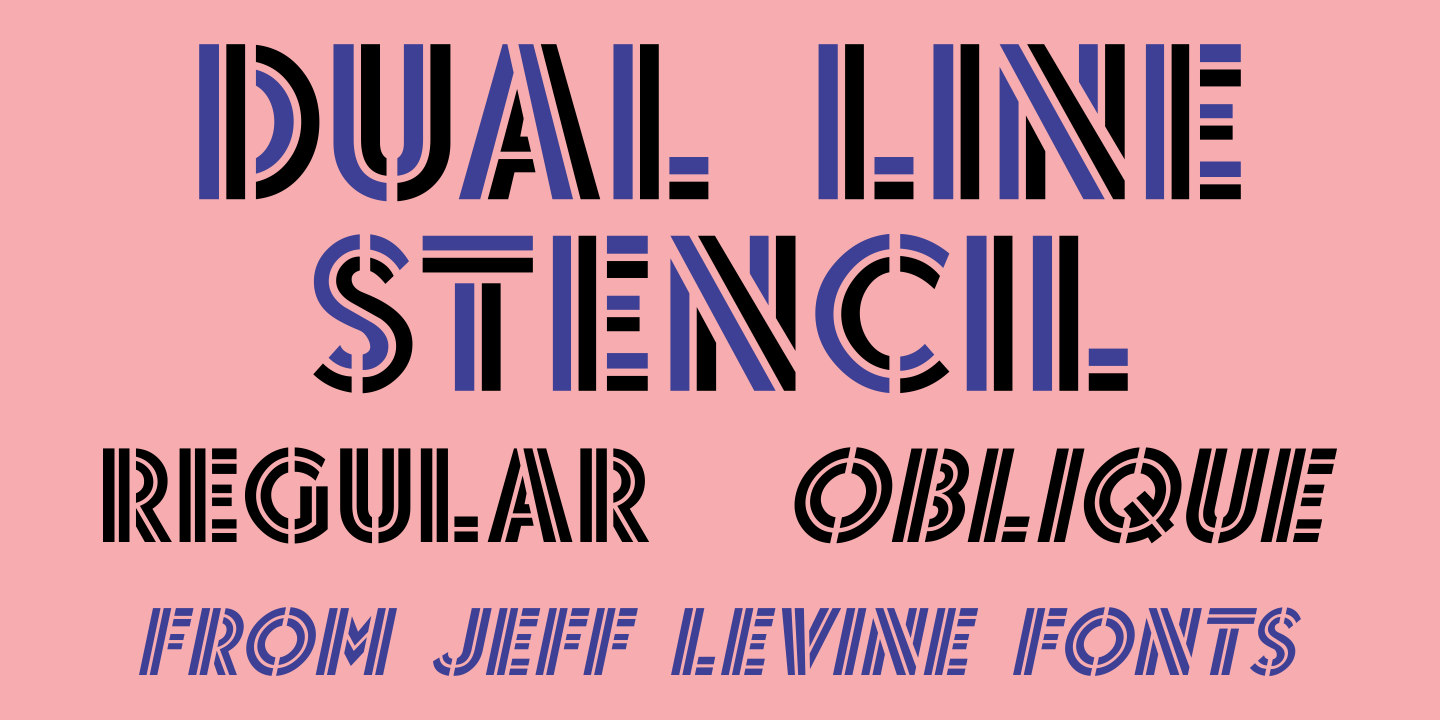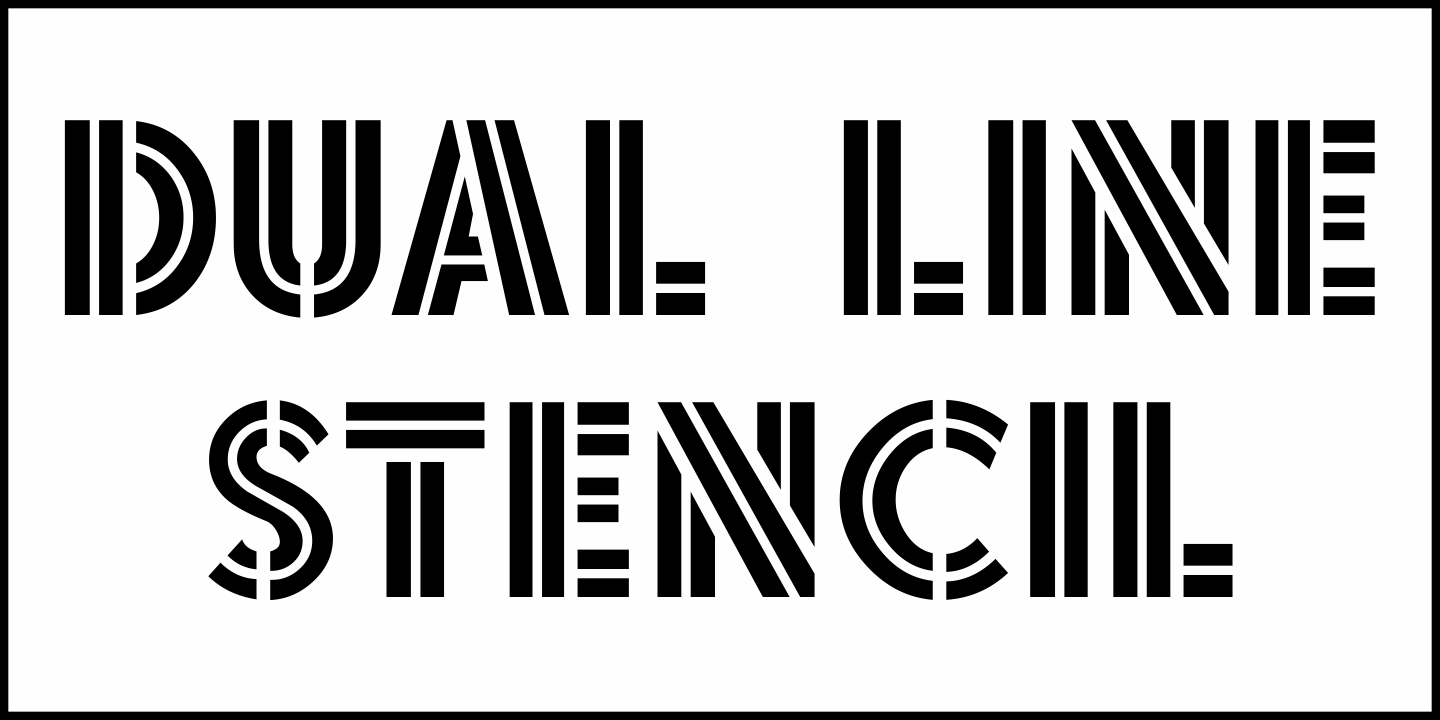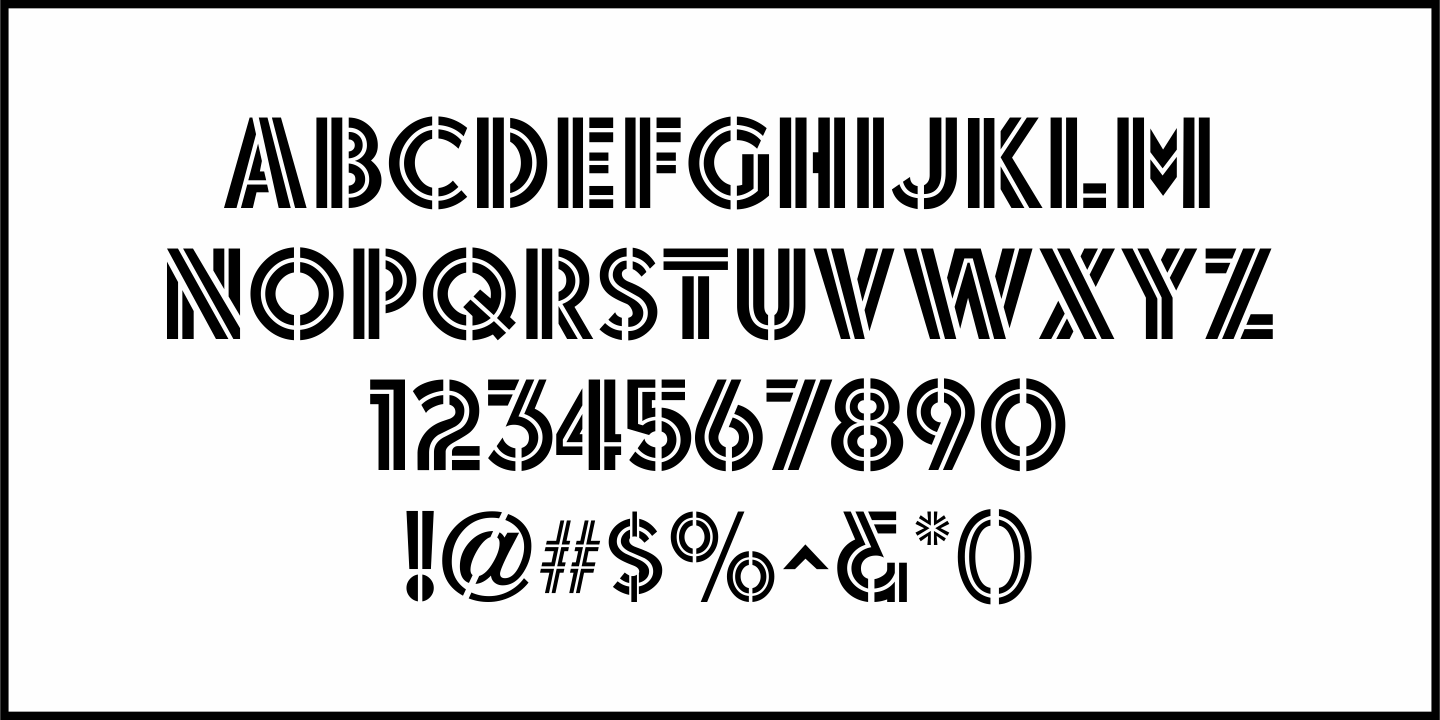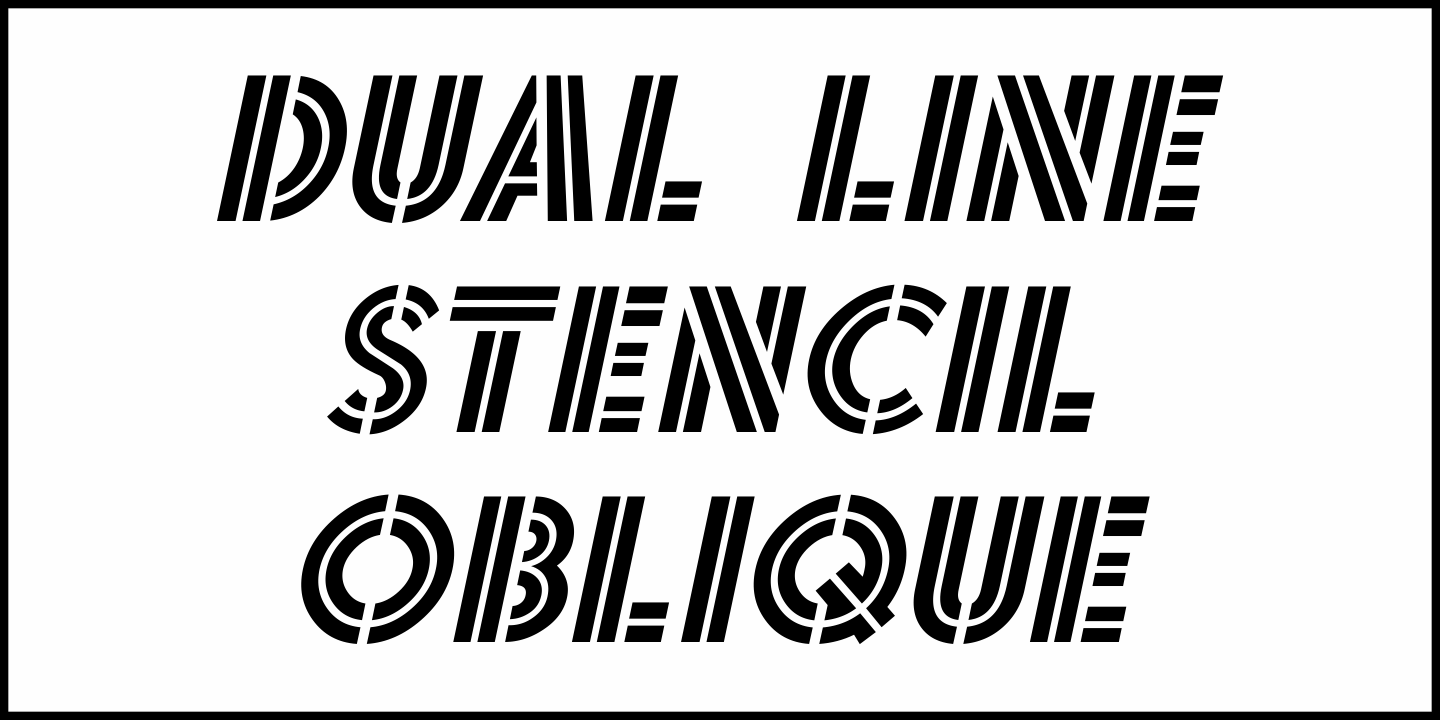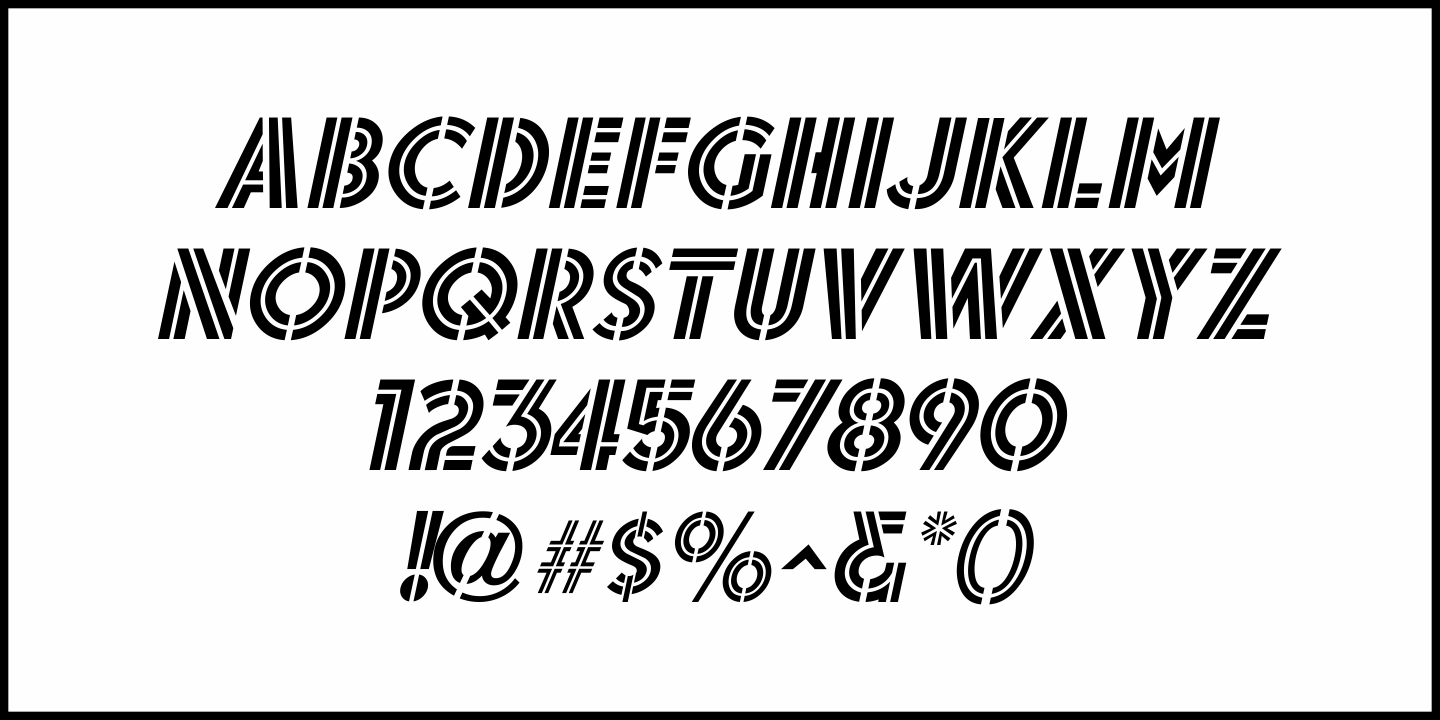
Dual Line Stencil
A set-aside work file featuring a bold sans serif typeface that may or may not have had a vintage source history was given a new treatment.
Initially, the solid design was converted to a stencil format and an experiment was undertaken to see what the alphabet would look like with a dual line treatment.
Surprisingly, it turned out quite well and the end result is Dual Line Stencil JNL; available in both regular and oblique versions.